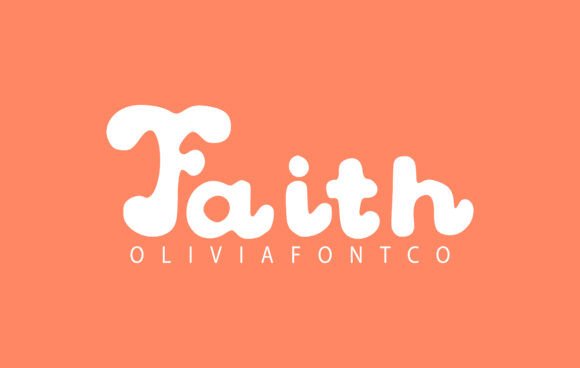
Discover the Charm of Faith Font: Elevate Your Designs with a Romantic Touch
In the world of typography, fonts play a crucial role in conveying the tone and personality of a design. Among the numerous fonts available, Faith Font stands out as a unique and captivating handwritten font that adds a romantic touch to any project. In this article, we’ll explore the features and benefits of Faith Font, and how it can elevate your creative ideas to new heights.
What is Faith Font?
Faith Font is an authentic handwritten font that exudes a sense of elegance and sophistication. Its romantic touch makes it perfect for designs that require a personal and emotional connection with the audience. Whether you’re working on a wedding invitation, a social media post, or a branding project, Faith Font is an excellent choice to add a touch of warmth and personality.
Key Features of Faith Font
- Legibility: Faith Font is designed to be highly legible, making it suitable for both title and body text. Its clear and readable design ensures that your message is conveyed effectively, regardless of the medium.
- Romantic Touch: The font’s handwritten style adds a romantic and personal touch to your designs, making it perfect for projects that require an emotional connection with the audience.
- Versatility: Faith Font can be used for a wide range of designs, including magazine headlines, social media posts, branding, wedding invitations, cards, and more.
- Authentic Handwritten Style: The font’s authentic handwritten style gives it a unique and organic feel, making it stand out from more traditional fonts.
Benefits of Using Faith Font
Faith Font offers several benefits that make it an excellent choice for designers and creatives. Some of the key benefits include:
- Elevate Your Designs: Faith Font has the potential to take your creative ideas to the highest level, adding a touch of sophistication and elegance to your designs.
- Save Time: With Faith Font, you can create stunning designs quickly and easily, without compromising on quality.
- Stand Out: The font’s unique and romantic style helps your designs stand out from the crowd, making it perfect for projects that require a personal touch.
Use Cases for Faith Font
Faith Font is a versatile font that can be used for a wide range of designs. Here are some use cases where Faith Font excels:
- Wedding Invitations: Faith Font is perfect for wedding invitations, adding a romantic and personal touch to the design.
- Social Media: The font’s legibility and romantic style make it an excellent choice for social media posts, helping you connect with your audience on a personal level.
- Branding: Faith Font can be used for branding projects, adding a touch of elegance and sophistication to your brand’s identity.
- Magazine Headlines: The font’s clear and readable design makes it suitable for magazine headlines, helping you grab the reader’s attention.
Tips for Using Faith Font
To get the most out of Faith Font, here are some tips to keep in mind:
- Pair with Other Fonts: Faith Font can be paired with other fonts to create a unique and visually appealing design.
- Experiment with Colors: The font’s romantic style can be enhanced with the right color scheme, so don’t be afraid to experiment with different colors.
- Use for Titles and Body Text: Faith Font’s legibility makes it suitable for both title and body text, making it a versatile font for your designs.
In conclusion, Faith Font is a unique and captivating handwritten font that adds a romantic touch to any design. Its legibility, versatility, and authentic handwritten style make it an excellent choice for a wide range of projects. Whether you’re a designer, creative, or business owner, Faith Font has the potential to elevate your designs and help you connect with your audience on a personal level.